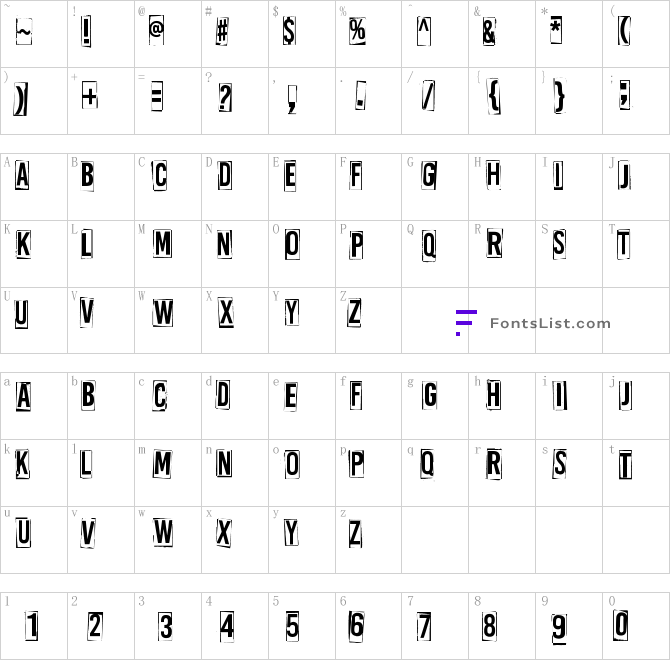
- Font Name:A Box For
A-Box-For.ttf is a very beautiful artistic font, A-Box-For.ttf is widely used in the design and printing of various books and pictures,A-Box-For.ttf has a strong visual impact,A-Box-For.ttf is a commonly used font in newspapers, magazines and books, and is used in posters, e-commerce Poster design, store design, logo design, font design and other fields.A-Box-For.